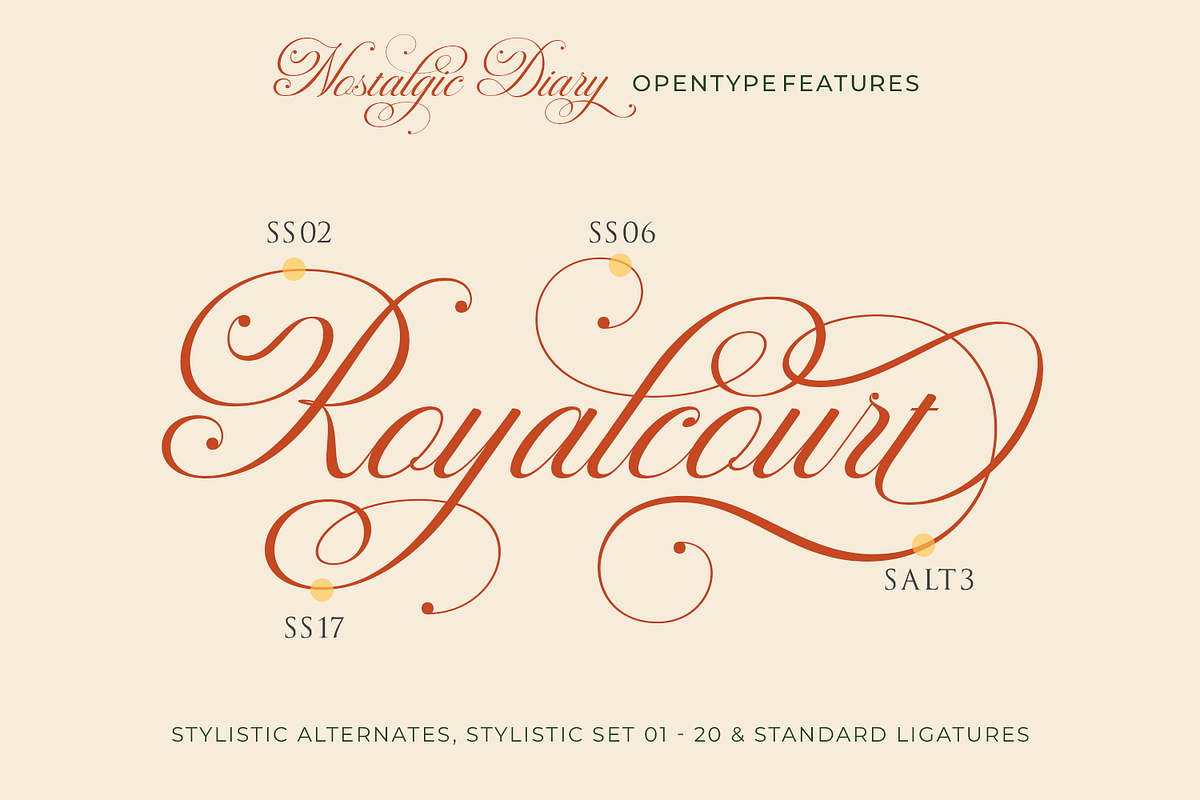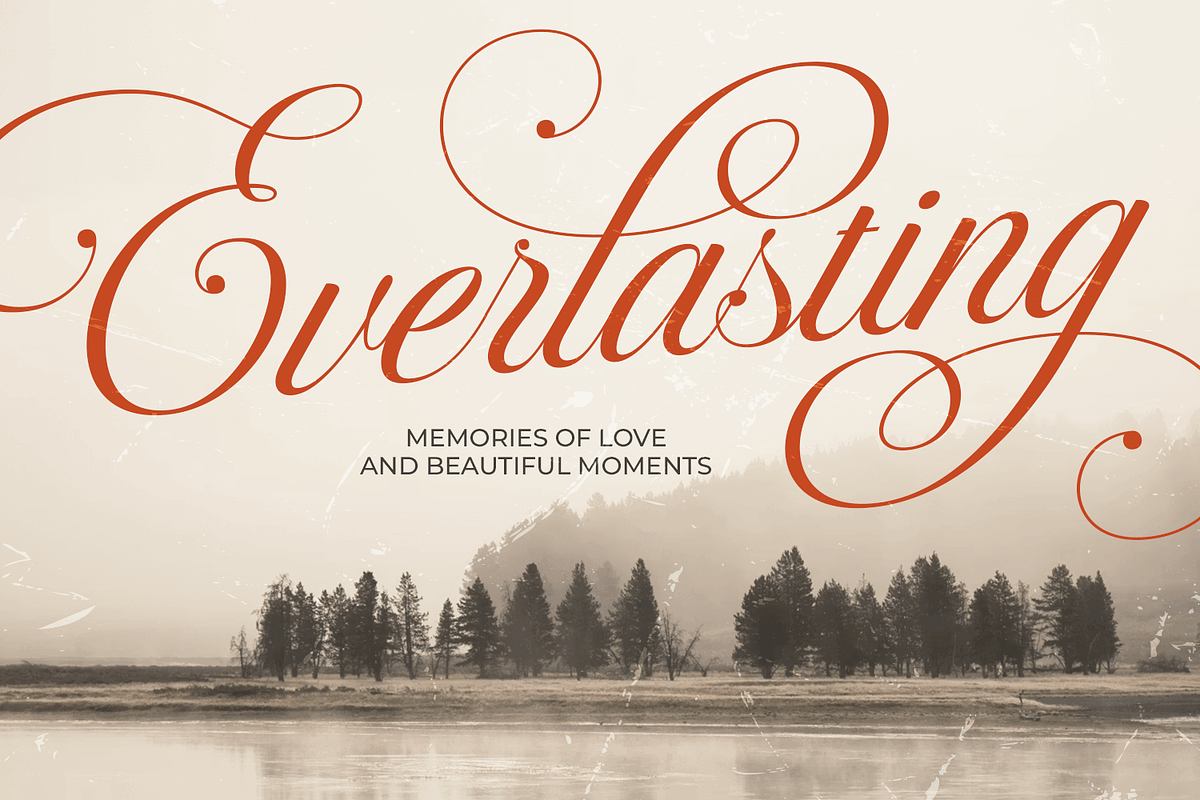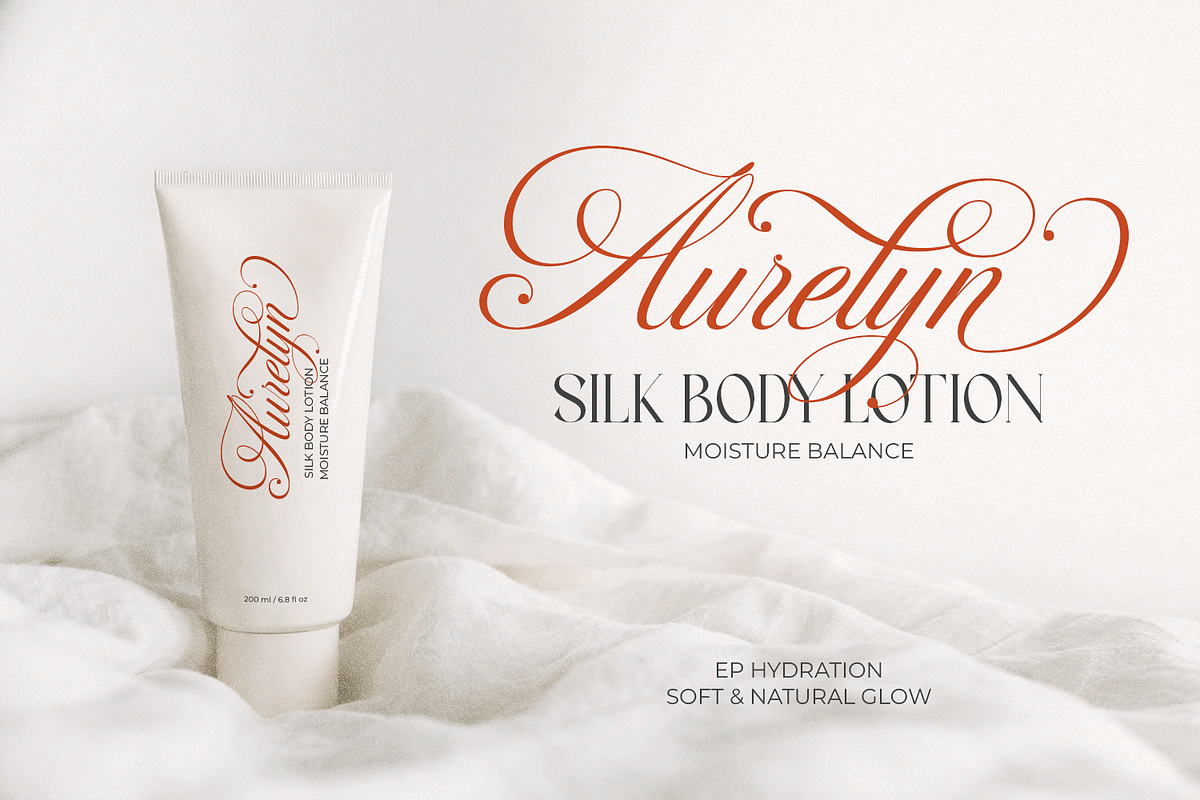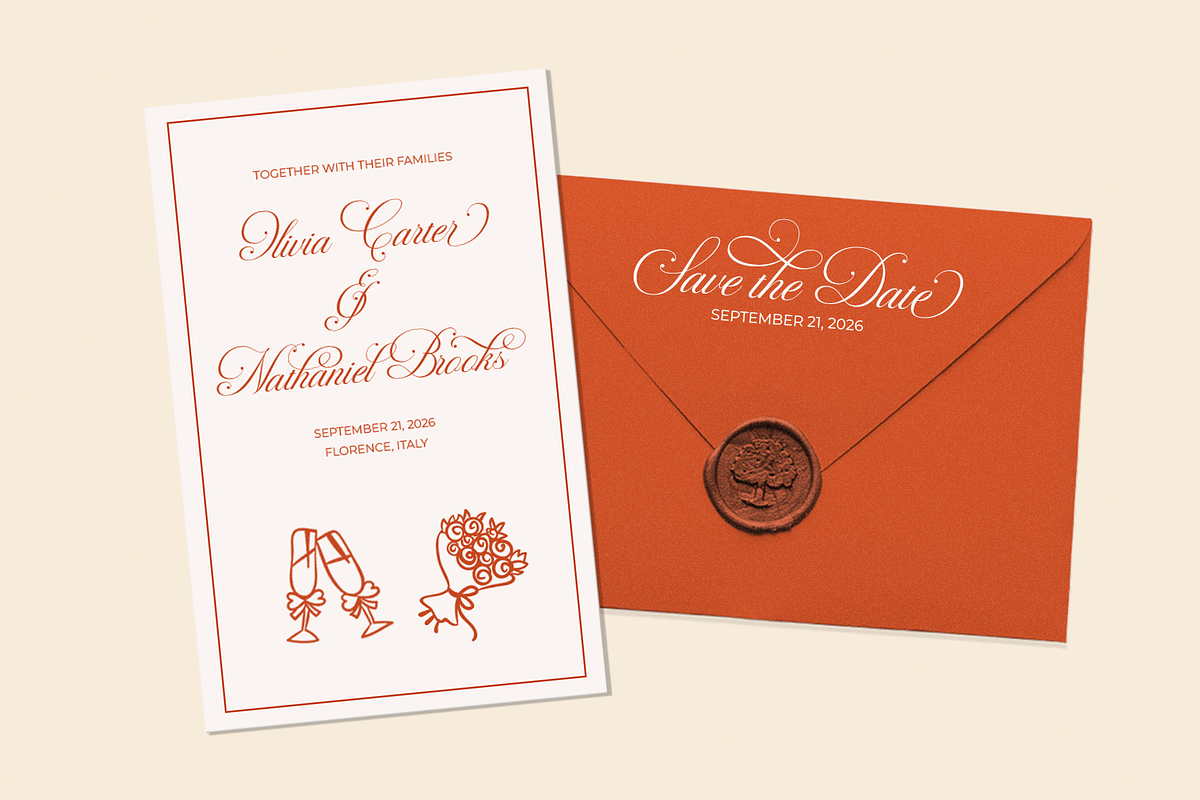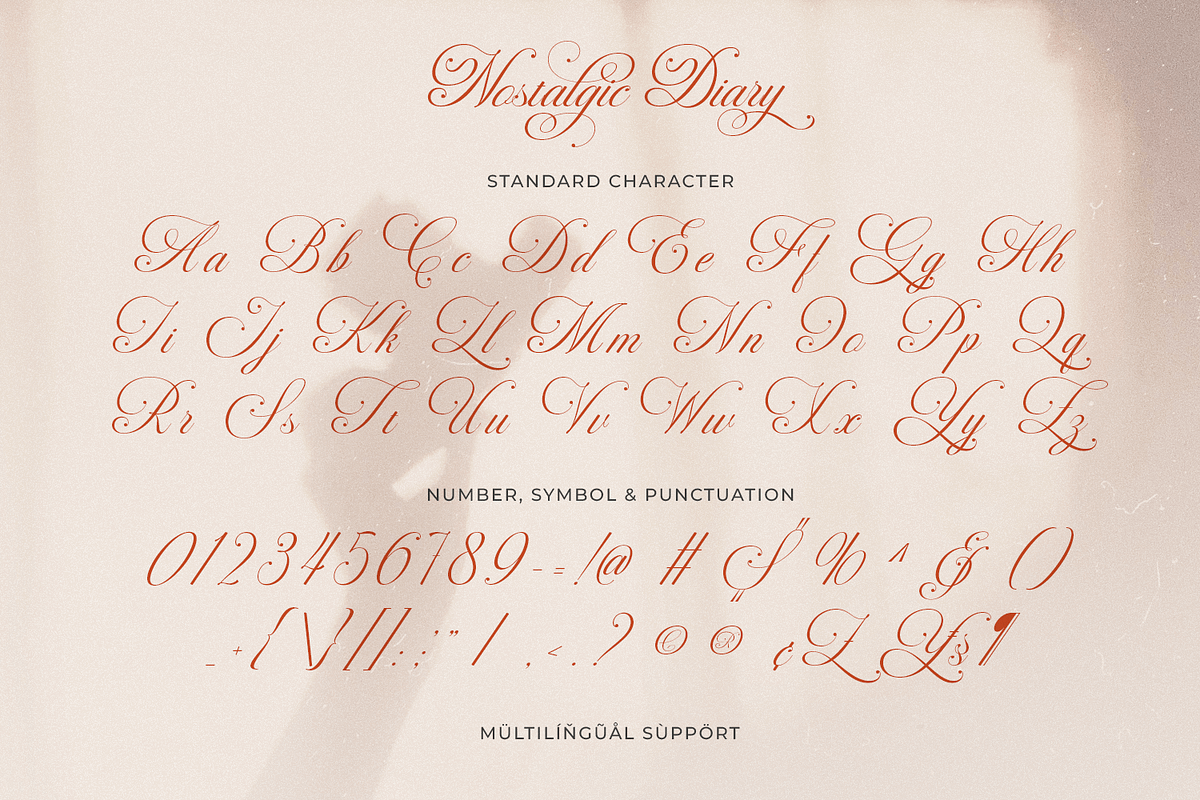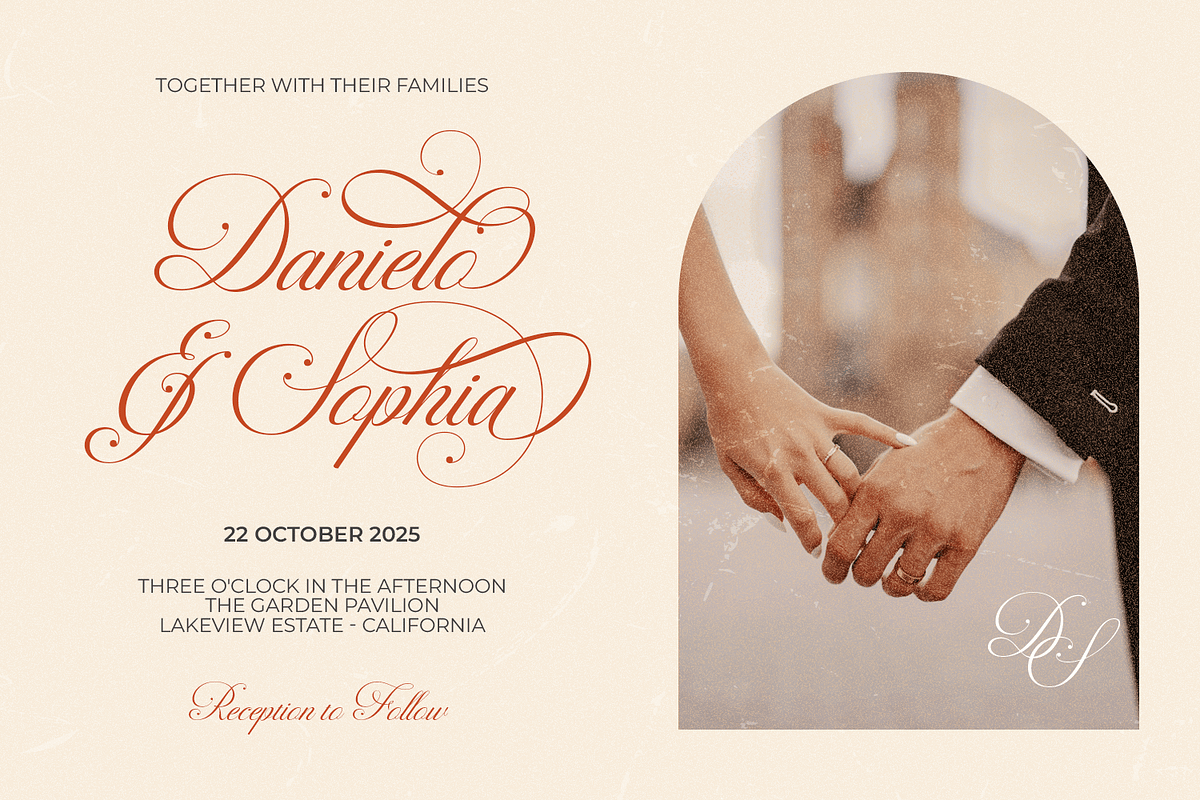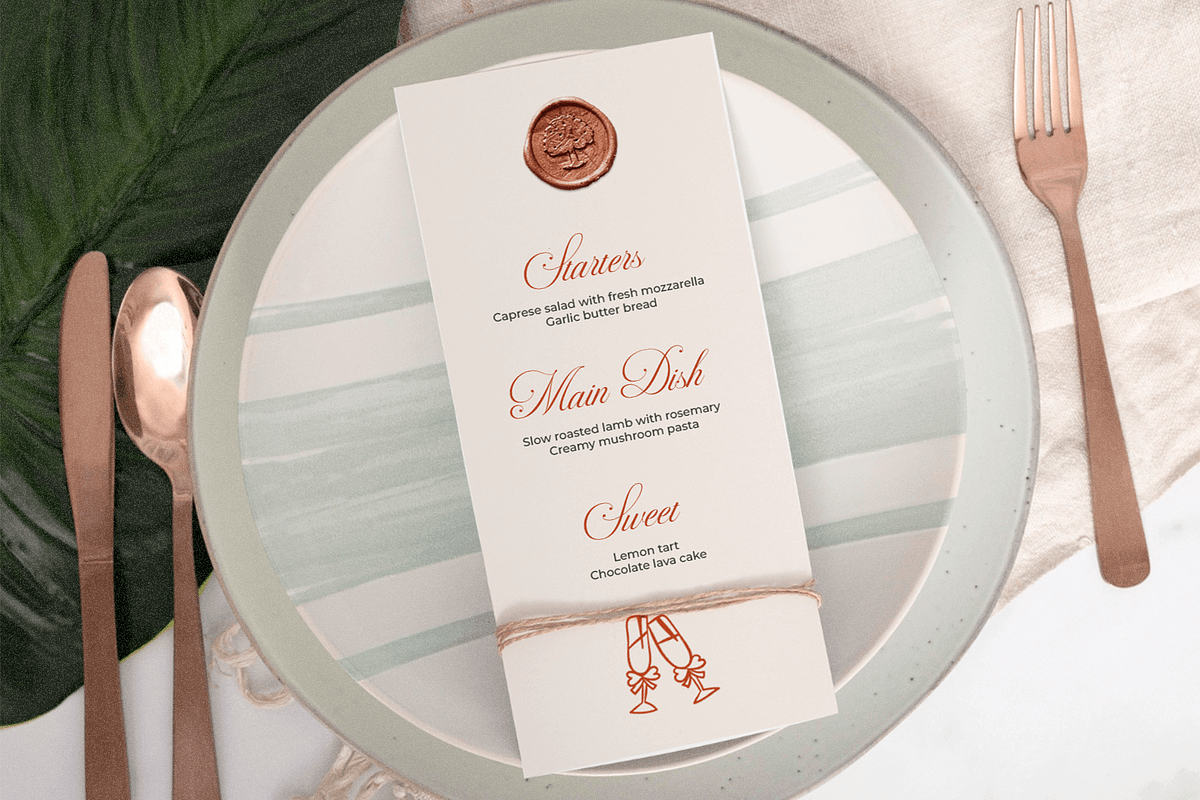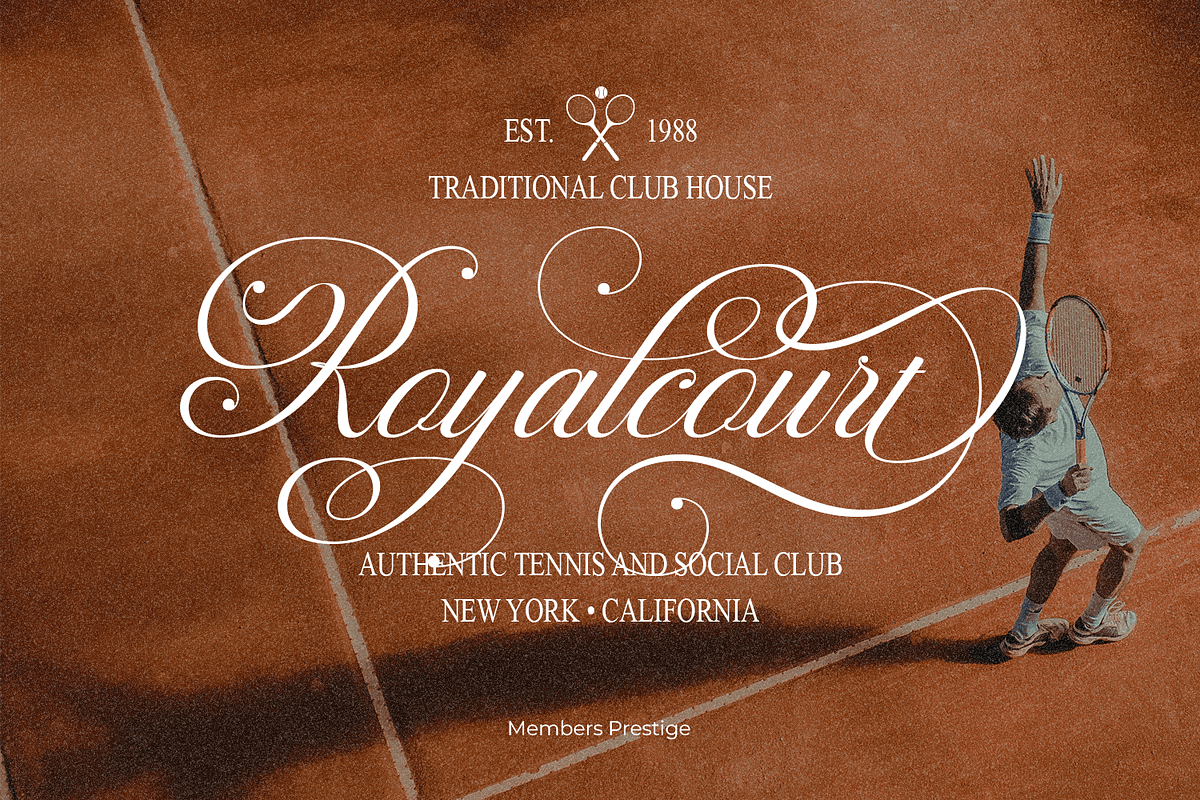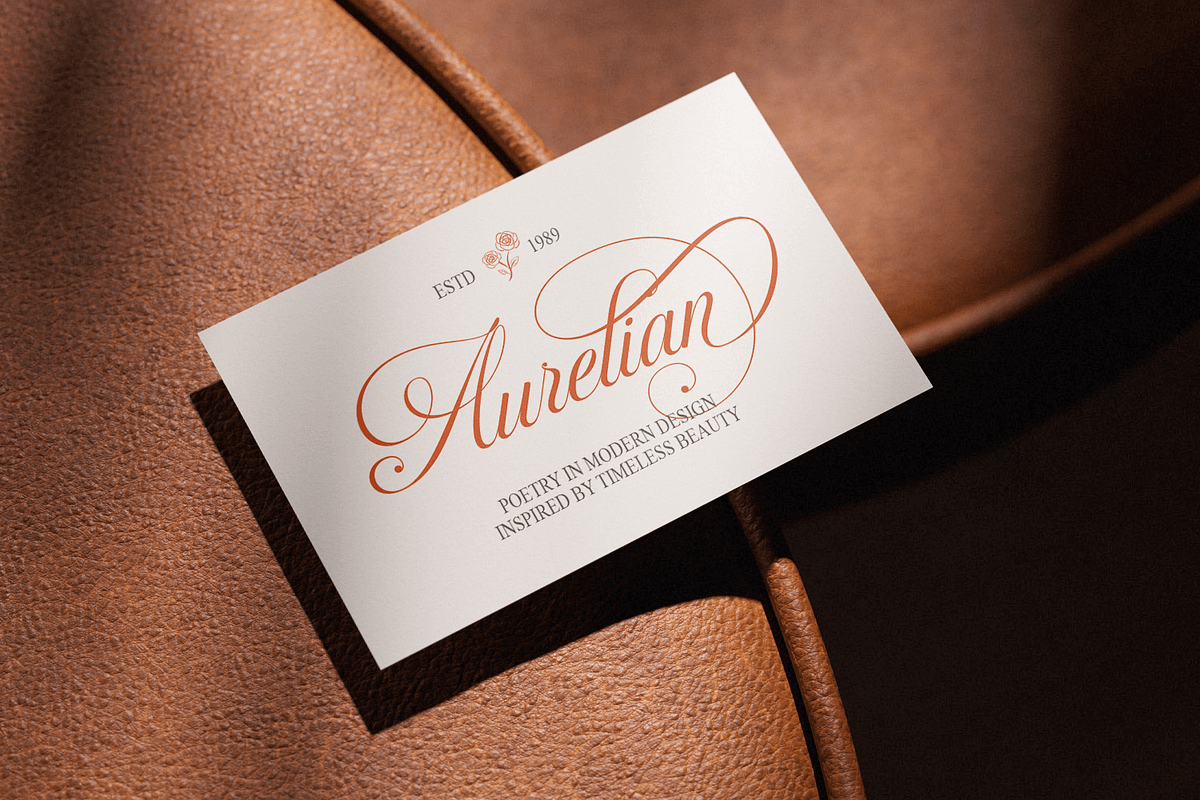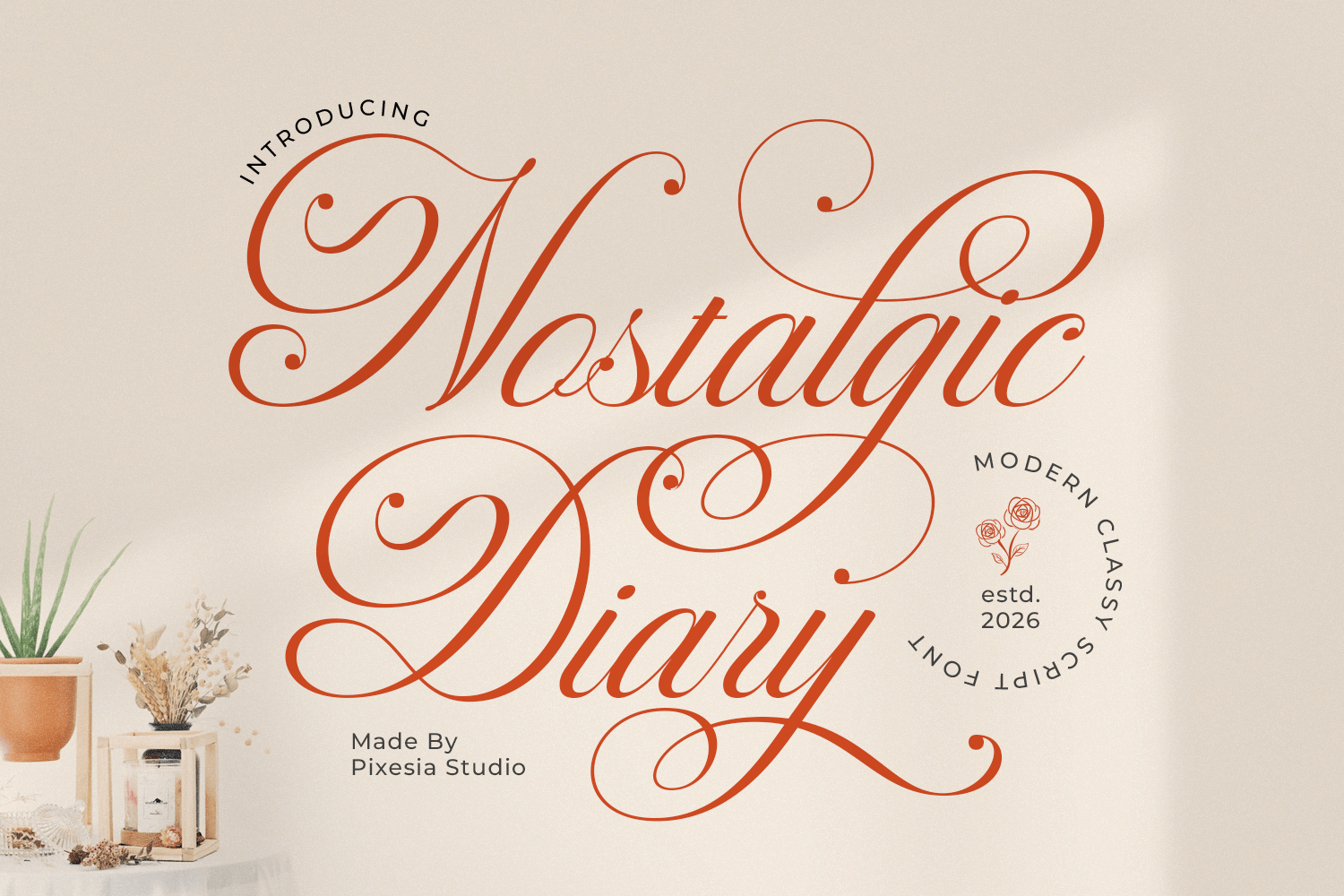
Nostalgic Diary Modern Cursive Font
Introducing Nostalgic Diary - Modern Cursive Script Font
Nostalgic Diary is a modern handwritten script font inspired by romantic calligraphy and vintage lettering styles. Designed with smooth flowing strokes and elegant curves, this font captures a perfect balance between modern sophistication and nostalgic charm, creating a truly stylish and chic impression.
Nostalgic Diary is perfectly suited for logo design, signature branding, wedding invitations, love-themed projects, product packaging, web titles, presentations, branding, logotypes, tshirt design, quotes, labels, advertisements, product designs, label, poster, photography, watermark, invitation, t-shirt design, stationery and social media content / post. Whether you're creating a luxury brand identity, a romantic summer beach design, or a retro-inspired display, this font adds a fancy, elegant, and timeless touch to any creative work.
- Multilingual Support including Afrikaans, Albanian, Basque, Catalan, Danish, Dutch, English, Estonian, Faroese, Filipino, Finnish, French, Galician, German, Icelandic, Indonesian, Irish, Italian, Malay, Norwegian Bokmål, Portuguese, Spanish, Swahili, Swedish, Zulu